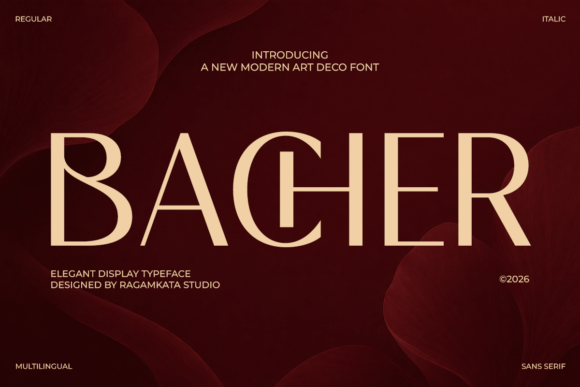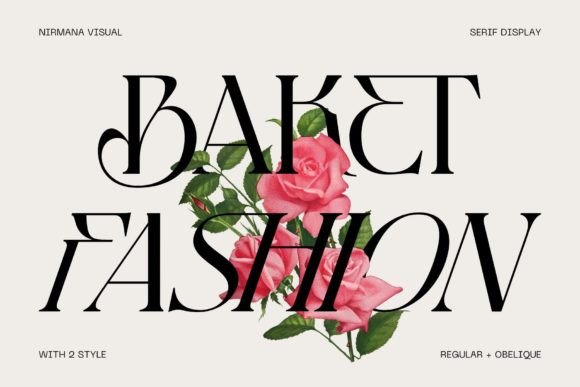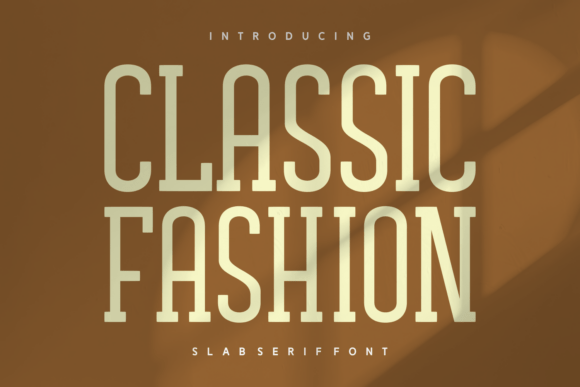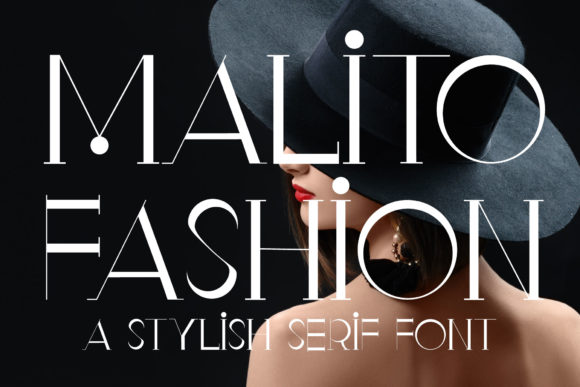
Serif fonts for fashion magazines shown on an editorial cover layout
20 Refined Serif Fonts for Fashion Magazines (2026)
The right serif fonts for fashion magazines set the mood of a whole issue in one line. A masthead, a pull quote or a full-bleed opener is where type becomes the image, and a sharp serif carries that weight better than anything else. So strong serif fonts for fashion magazines are chosen for presence first and detail second.
This guide sorts 20 fonts by mood, dramatic cover serifs, full editorial families, clean companions and script accents, so you find the feeling first and the font second.
Serif fonts for fashion magazines, by mood
Before the list, the short map. Most editorial systems mix a display serif for the big moments with quiet type for the small ones, so judge these serif fonts for fashion magazines by the job.
• The cover: a high-contrast display serif that leads the layout.
• The feature: a family for openers, drop caps and quotes.
• The captions: a clean companion that stays calm and legible small.
• The accent: a script for a romantic feature title.
Dramatic display serifs for covers and openers
These are the show-stoppers. High contrast and real presence at size, these serif fonts for fashion magazines lead a masthead or a full-page opener.
Seraphim
Seraphim refined serif fonts for fashion magazines covers
Seraphim is a refined serif inspired by classic beauty and modern elegance. Among serif fonts for fashion magazines it is a graceful cover lead, with the contrast and poise a masthead needs. Use it large for the title and a clean sans for cover lines. The fine strokes want a generous size to read in print. For a fashion title that wants timeless elegance on the cover, Seraphim is a strong serif worth a close look.
Malito Fashion
Malito Fashion thin serif fonts for fashion magazines
Malito Fashion is an elegant, thin, stylish serif. Among serif fonts for fashion magazines it whispers where others shout, lovely for a soft, feminine title or a romantic feature opener. The fine strokes give pages an airy feel, so reserve it for large sizes. Pair it with a clean sans for captions. For a fashion magazine leaning elegant rather than bold, Malito Fashion is a graceful cover serif worth trying.
Bacher
Bacher Art Deco serif fonts for fashion magazine covers
Bacher is a modern Art Deco face blending timeless elegance with contemporary minimalism. Among serif fonts for fashion magazines it brings a glamorous, 1920s-meets-now mood to a cover or section opener. The geometric forms read striking at size. Use it for titles and let a plain sans carry the text. For a fashion title that wants Deco drama on the page, Bacher is a characterful display face worth a look.
Baket Fashion
Baket Fashion elegant serif fonts for fashion magazines
Baket Fashion is an exquisite elegant serif built for sophistication. Among magazine serif fonts it makes a refined cover or feature title, polished without too much flourish. Use it large for the headline and a quiet sans below for cover lines. The clean elegance reads expensive at size. For a fashion publication that wants understated drama on the cover, Baket Fashion is a graceful serif worth a closer look.
Classic Fashion
Classic Fashion vintage serif fonts for fashion magazines
Classic Fashion is a vintage face with revered old-style charm. Among serif fonts for fashion magazines it suits a heritage or culture title that wants a nostalgic, established feel on the cover. The old-style detailing reads as history while staying legible large. Pair it with a clean sans for modern balance. For a fashion or culture magazine that wants a classic, timeless masthead, Classic Fashion is a warm serif worth trying.
Editorial serif families for a full issue
Multi-style families give a full editorial toolkit, from a heavy cover weight to a light caption italic, all drawn to sit together across the issue.
Medvilea Editorial
Medvilea Editorial serif family fonts for fashion magazines
Medvilea Editorial ships as a family of styles built for modern luxury. Among serif fonts for fashion magazines this range matters, since you can hold one voice from cover to caption. Use heavier weights for openers and lighter ones for standfirsts and quotes. The flowing curves keep it from feeling cold. For a title that wants one serif family to run a whole issue, Medvilea Editorial is a strong toolkit worth a close look.
Luxury Editorial Bundle
Luxury Editorial bundle serif fonts for fashion magazines
The Luxury Editorial Bundle gathers refined serifs into one collection for elegant, modern layouts. Among serif fonts for fashion magazines its value is choice with consistency: the faces share a mood, so mixing a title serif with a quote serif still looks intentional. Assign each weight a job to set a house style. For a studio designing more than one title, this bundle is a practical starting point worth a look.